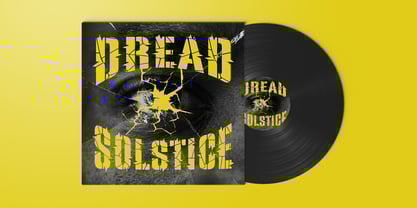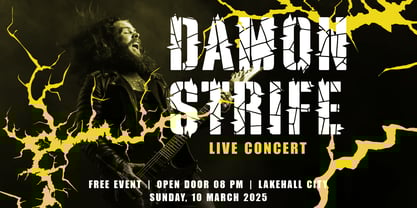
Cracked Slash
by Shanaf
The Cracked Slash Font Family was designed by Yesie Erma Yunita and published by Shanaf. Cracked Slash contains 1 styles. More about this family
Cracked Slash – Cracked Display Font is a powerful and distinctive typeface that boldly captures the essence of rugged intensity and extreme aesthetics. Its striking, shattered appearance, combined with sharp, thorn-like fractures, evokes a raw and rebellious style reminiscent of death metal and black metal music genres. The font's robust, block-like letters, disrupted by dramatic cracks, provide a unique visual impact, ideal for projects that demand immediate attention and convey themes of power, chaos, or rebellion. The layout of the font is meticulously crafted, ensuring each crack complements the overall readability while maintaining its fierce and aggressive vibe.
This font excels in applications designed to make a memorable impression, including music band logos, album covers, posters, and merchandise branding. Its fractured and intense design makes it an excellent choice for dark-themed packaging, horror film titles, gothic-style magazine covers, and thriller or suspense book covers. With its dramatic style, Cracked Slash is versatile enough to add a distinctive edge to business branding, event invitations, crafting projects, stickers, greeting cards, and bold headlines. Offering a complete character set, including uppercase, lowercase, numerals, and special symbols, this font seamlessly merges creativity with functionality, ensuring your design projects stand out in the most visually impactful way.